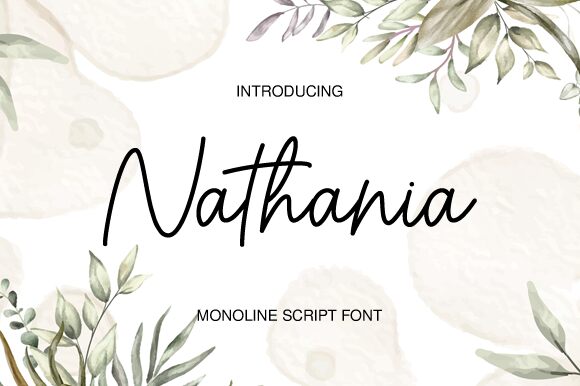
Nathania
Nathania is a captivating handwritten font crafted by Graphix Line Studio. This monoline design exudes a delicate, yet confident charm, effortlessly blending sophistication and playfulness. The fluid, organic strokes create a sense of movement and vibrancy, inviting the reader to explore the graceful curves and subtle variations that give this font its distinct personality.
Nathania's light weight and distinctive character make it a versatile choice for a wide range of design applications, from elegant stationery and wedding invitations to modern branding and editorial layouts. Its natural, handcrafted aesthetic lends itself well to projects seeking a personal, artisanal touch, infusing them with a touch of warmth and authenticity.